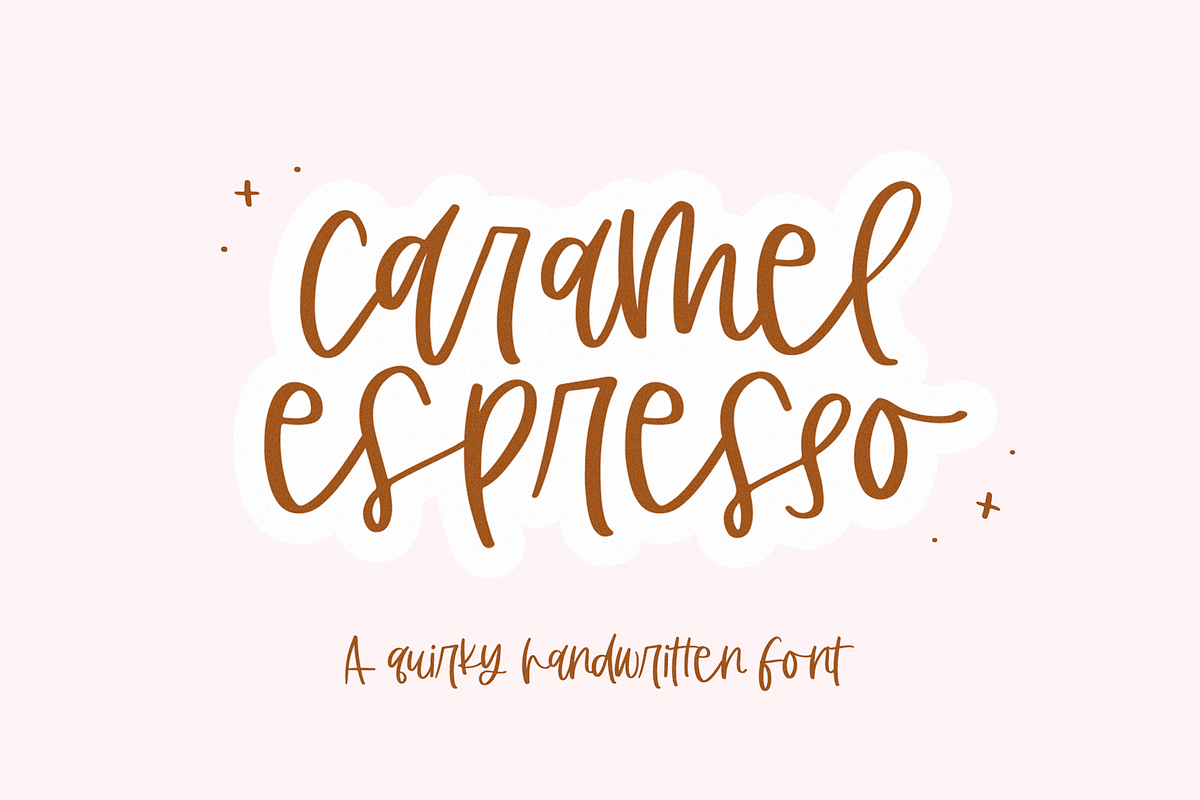
Caramel Espresso | Handwritten Font Free Download is a warm, cozy script font inspired by the comfort of your favorite café moment. With its smooth, flowing lines and casual handwritten charm, this font is perfect for coffee shop branding, menu designs, product packaging, lifestyle blogs, and social media content.
The font captures an inviting and approachable vibe—just like a handwritten note on a coffee cup. It includes uppercase and lowercase letters, punctuation, ligatures, multilingual support, and is fully compatible with both Mac and Windows systems.